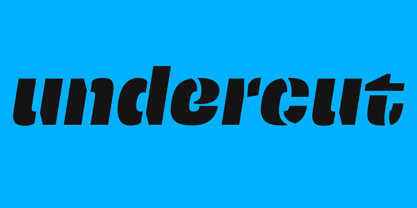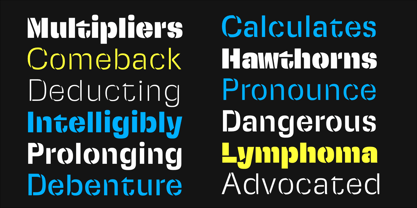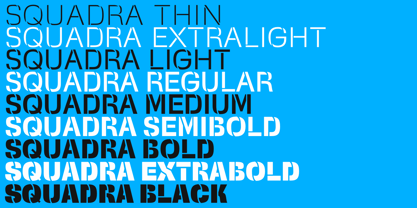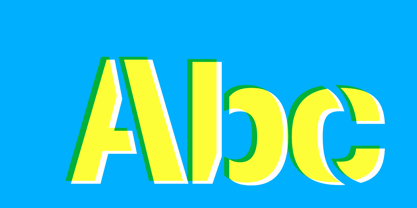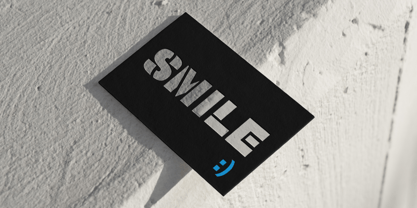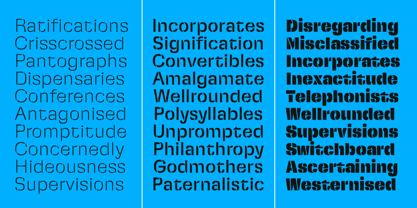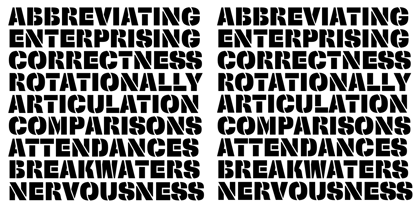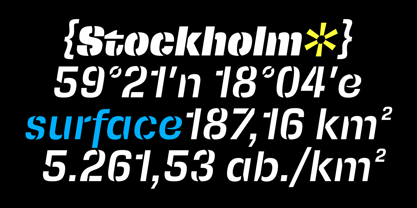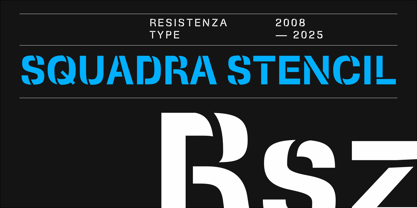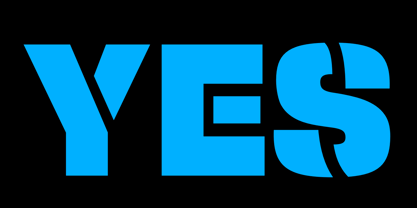
Squadra Stencil
by Resistenza
The Squadra Stencil Font Family was designed by Giuseppe Salerno, Paco González and published by Resistenza. Squadra Stencil contains 18 styles and family package options. More about this family
Squadra Stencil is a bold and modern stencil typeface with a unique geometric and modular aesthetic based on our previous release Squadra.
It features a strong rectilinear and angular structure, with precisely placed breaks in the letterforms that create the stencil effect while maintaining legibility.
These carefully crafted cuts give the font a high-tech, futuristic look. The typeface family includes multiple weights ranging from thin to bold, offering a versatile typographic palette. Italic styles introduce dynamic forward-leaning shapes that add movement and energy, while certain glyphs incorporate curved stencil breaks, setting them apart from conventional rigid stencil fonts.
Squadra Stencil seamlessly combines elements of industrial signage, brutalist typography, and futuristic sci-fi aesthetics, reinforcing its modular nature with striking letterforms such as the R, S, and Q. Designed with an extended character set, it includes uppercase, lowercase, numerals, and symbols, ensuring broad usability. Some styles feature rounded, curved, or unexpected stencil gaps, departing from traditional military-style stencils and adding a contemporary edge.
This typeface is ideal for a variety of applications, including branding for futuristic or industrial-themed projects, editorial and magazine design, tech-related interfaces, luxury fashion identities, and bold poster compositions. Squadra Stencil is a perfect balance of precision, modernity, and experimental stencil typography, making it both highly functional and visually compelling.